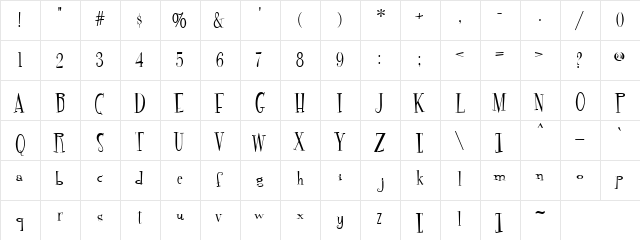
Tuby node Regular
Design Context for Tuby node Typeface
Tuby node is a composed and adaptable typeface that performs quietly and consistently across a wide range of design contexts.